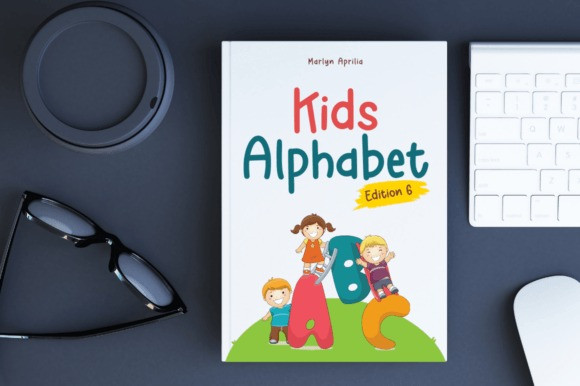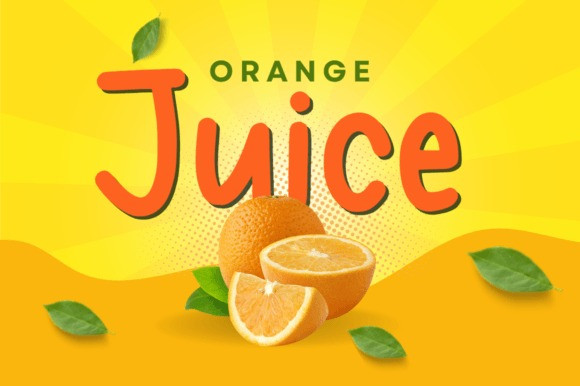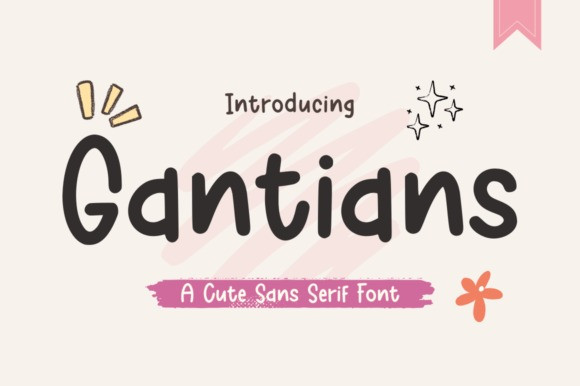
Gantians Script Font
Gantians Script Font a font that radiates cute and playful vibes. With its whimsical letterforms and charming curves, this font brings a delightful touch to your designs. Perfect for adding a dose of fun to children’s books, posters, or greeting cards. Gantians infuses your creations with a playful energy that is sure to bring smiles to faces.